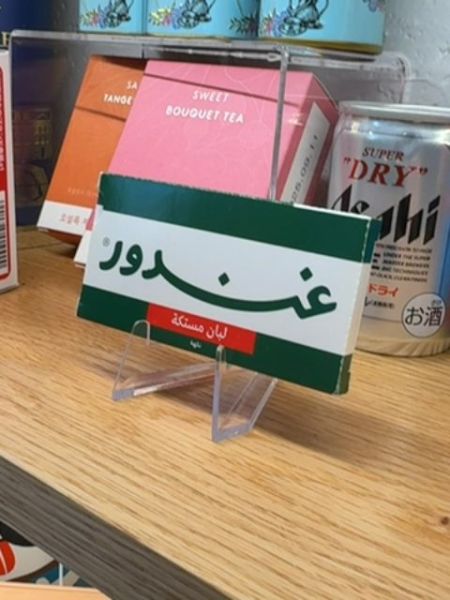
Asahi Super Dry
A Japanese brand of beer known for its crisp flavor and dry, refreshing finish.
1987
The typography on the Asahi Super Dry can is bold and sans-serif, conveying a sense of modernity and clarity. The use of black text on a silver background creates a striking contrast, while the red accents highlight key elements such as the 'DRY' label.
The packaging features a sleek, metallic silver can with bold black lettering. The design includes accents of red that create a dynamic and modern aesthetic.
- Asahi Super Dry is one of the most popular beers in Japan.
- The beer is known for pioneering the 'dry' beer trend in Japan.
- It has a crisp and refreshing taste thanks to its special brewing process.